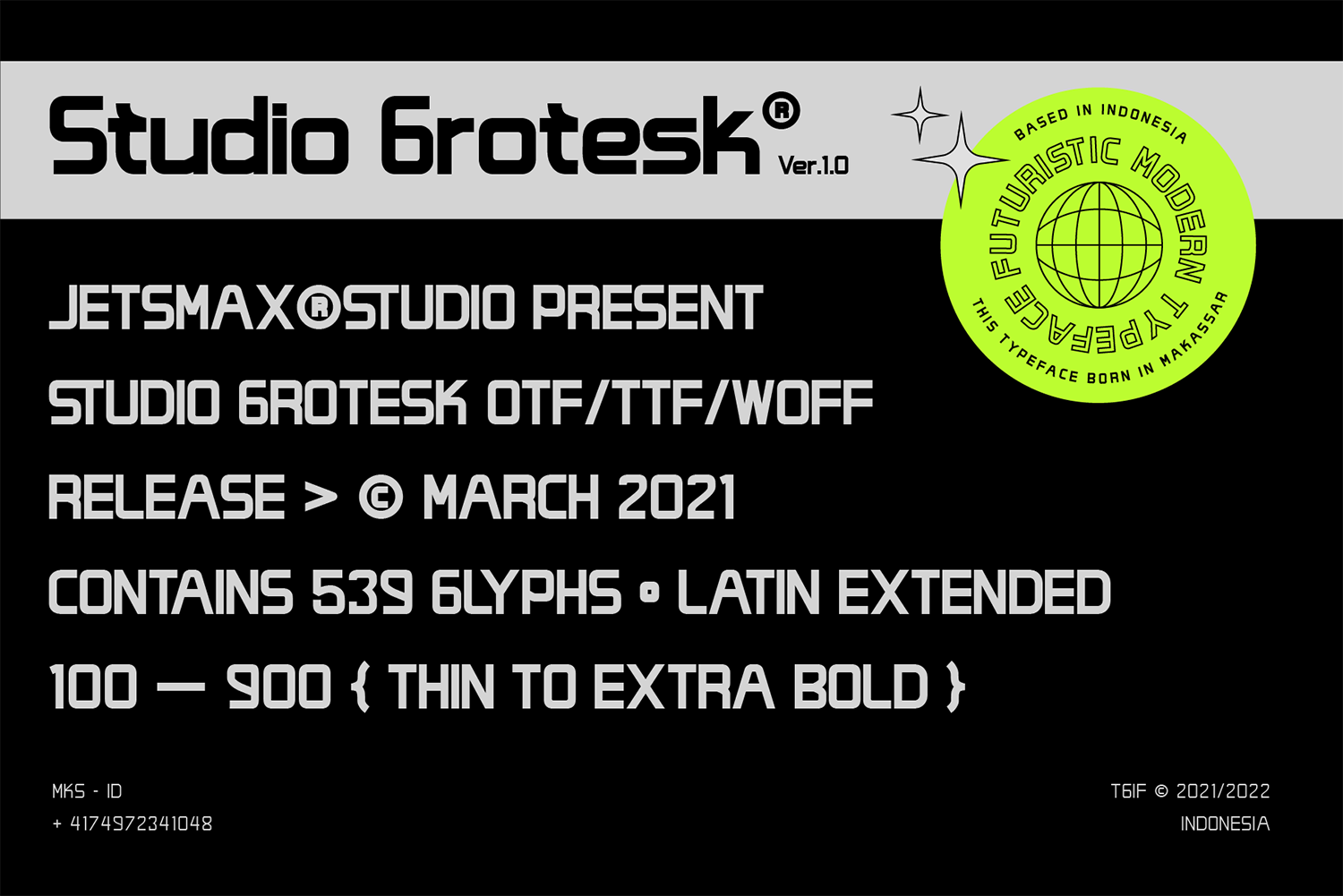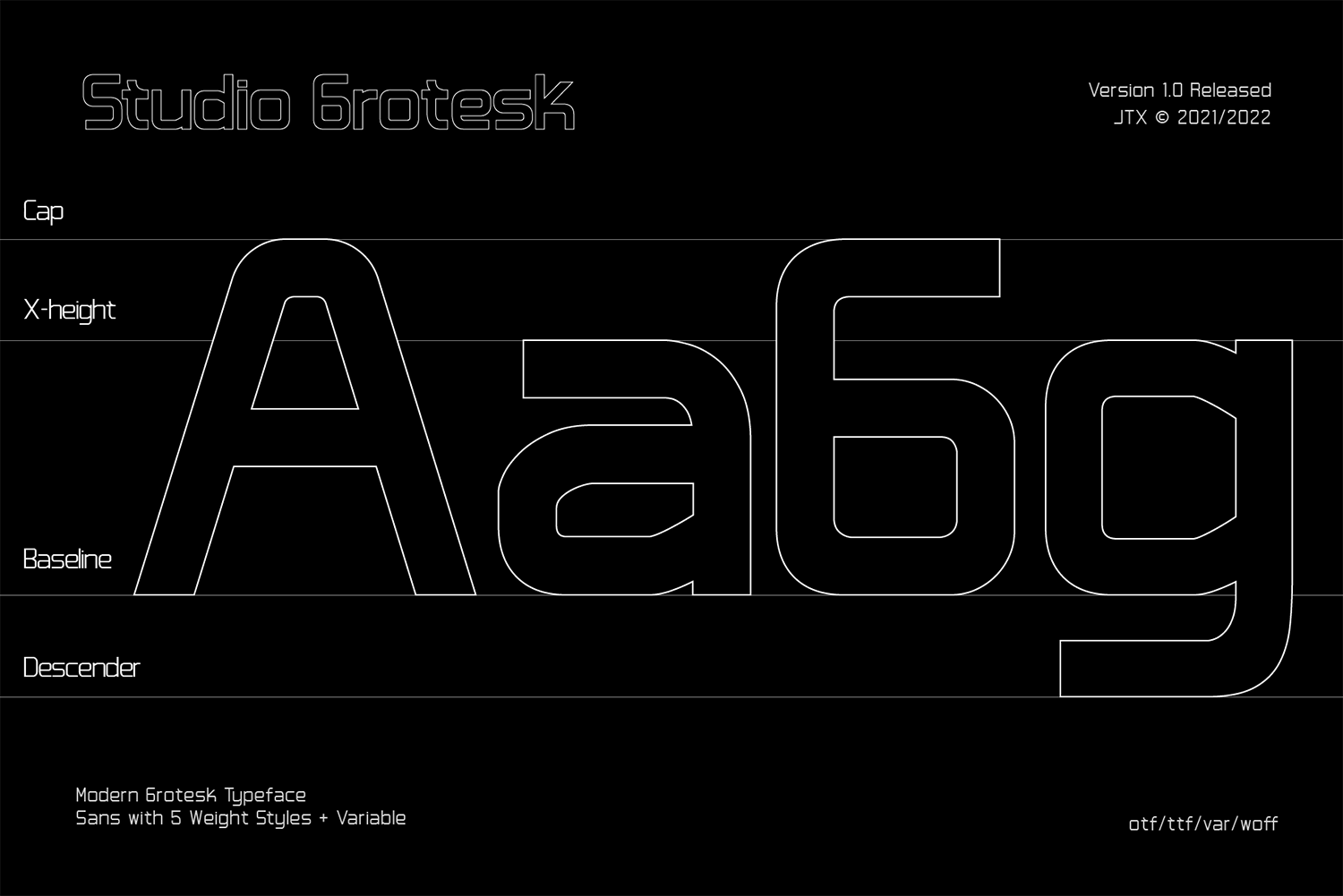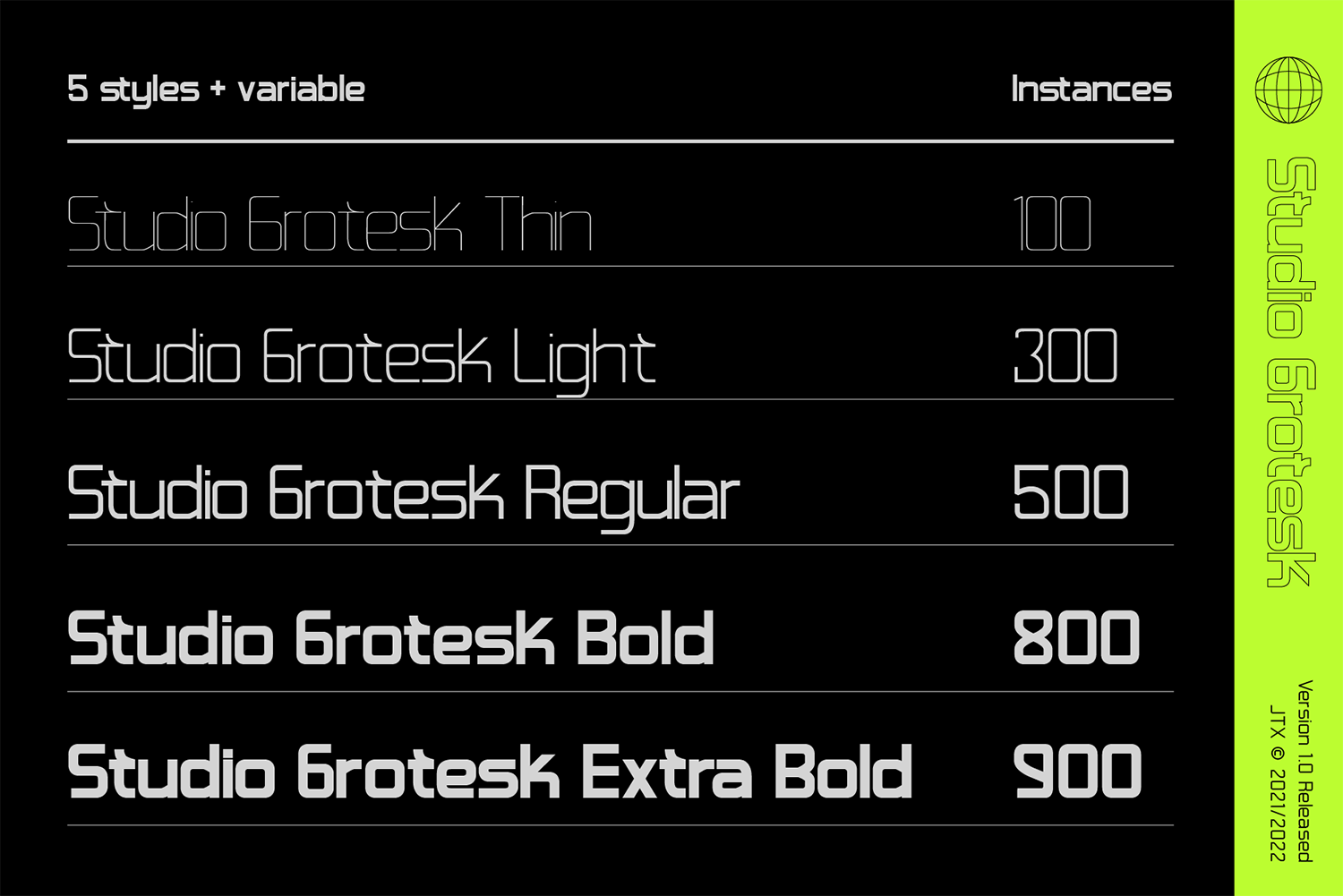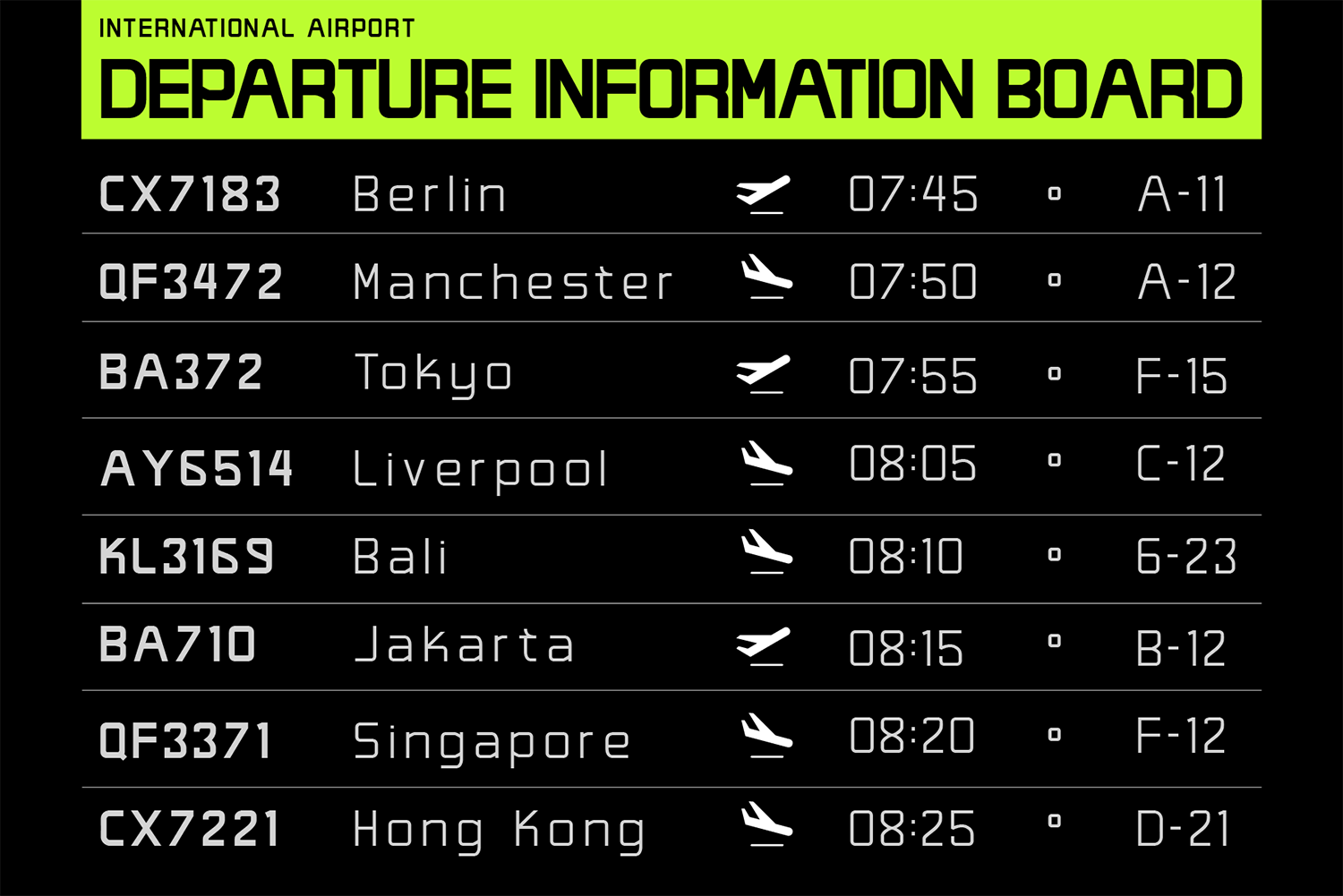
Studio Grotesk Free Font
Meet Studio Grotesk Free Font, a display font characterized by its techno-inspired, geometric design. This font is perfectly suited for enhancing web designs, creating striking business cards, and infusing a distinctive flair into a wide array of projects. With its unique touch, Studio Grotesk adds a touch of individuality to whatever you apply it to. This free typeface was designed by a talented Jetsmax Studio. If you like it don’t forget to check out the full version.